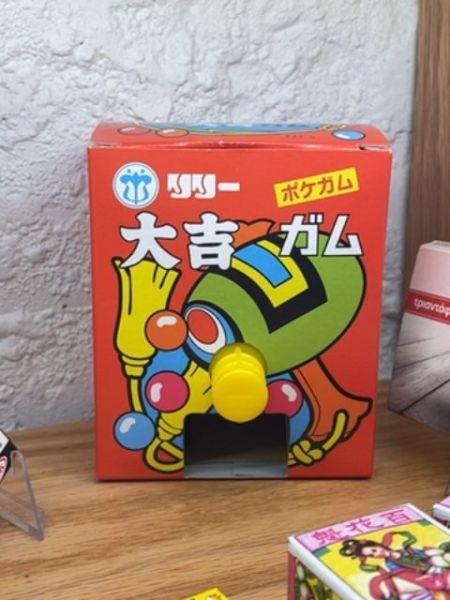
大吉ガム (Daikichi Gum)
A Japanese chewing gum product, often enjoyed for its unique flavors and fun packaging.
The typography features bold, white characters on the main product name, standing out vividly against the red background. It uses a traditional Japanese typeface, adding an authentic cultural touch. Additional elements utilize a combination of yellow and black, enhancing visibility and maintaining the playful theme.
The packaging is a small, colorful box with a playful, cartoon-like design. It features an illustration of a fortune-telling machine, hinting at the product's playful nature. The bright red background and eye-catching imagery aim to attract children and enthusiasts of novelty candy.
- The gum is associated with fortune telling, adding an element of surprise.
- It often includes a small fortune or message inside.
- The brand is popular for its playful and nostalgic appeal.